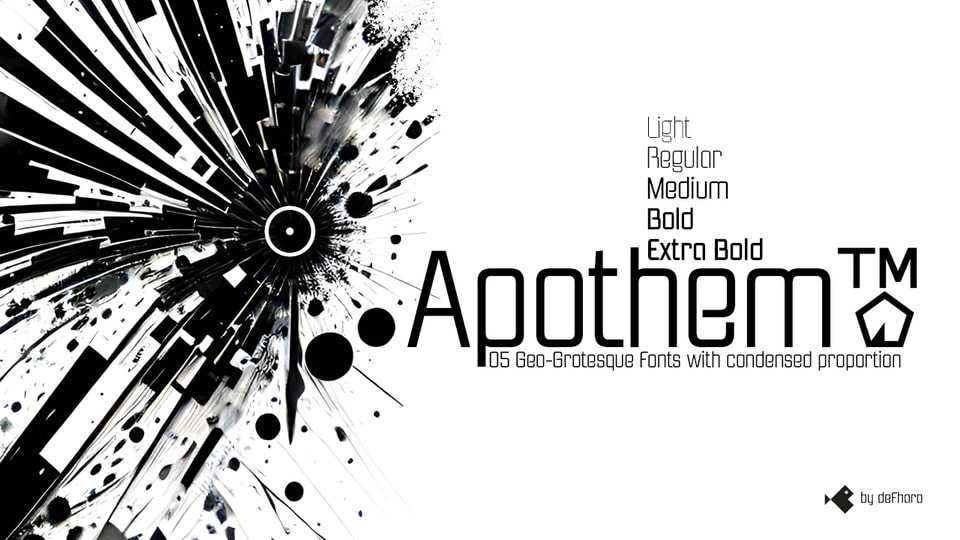
Download Apothem font, a very versatile condensed typeface, recommended for a wide range of applications. Its coherence and geometric elegance provide a distinctive and professional character to any design work.